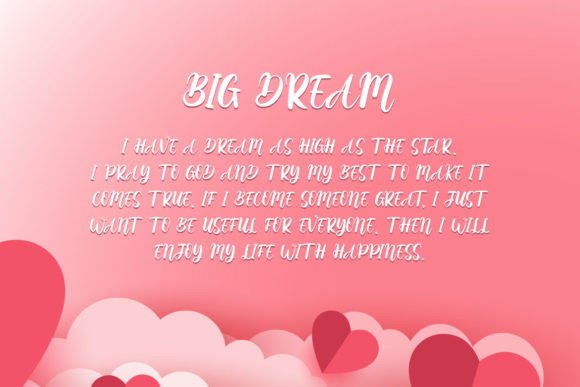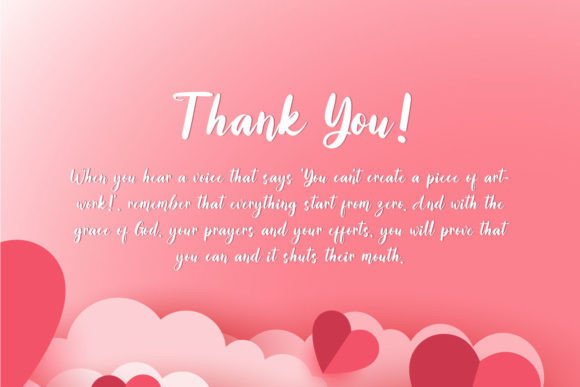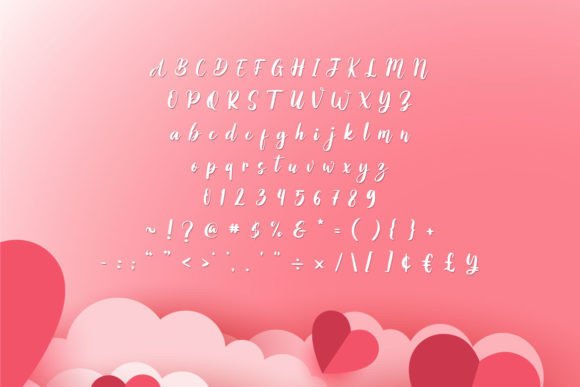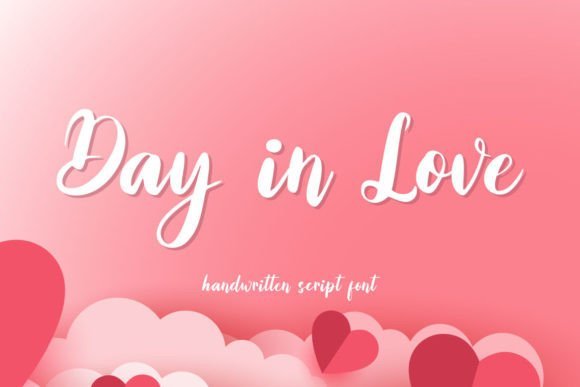
Introduction to Day in Love Font
Day in Love is an exquisite handwritten font, masterfully designed to become a true favorite.
Key Features of Day in Love Font